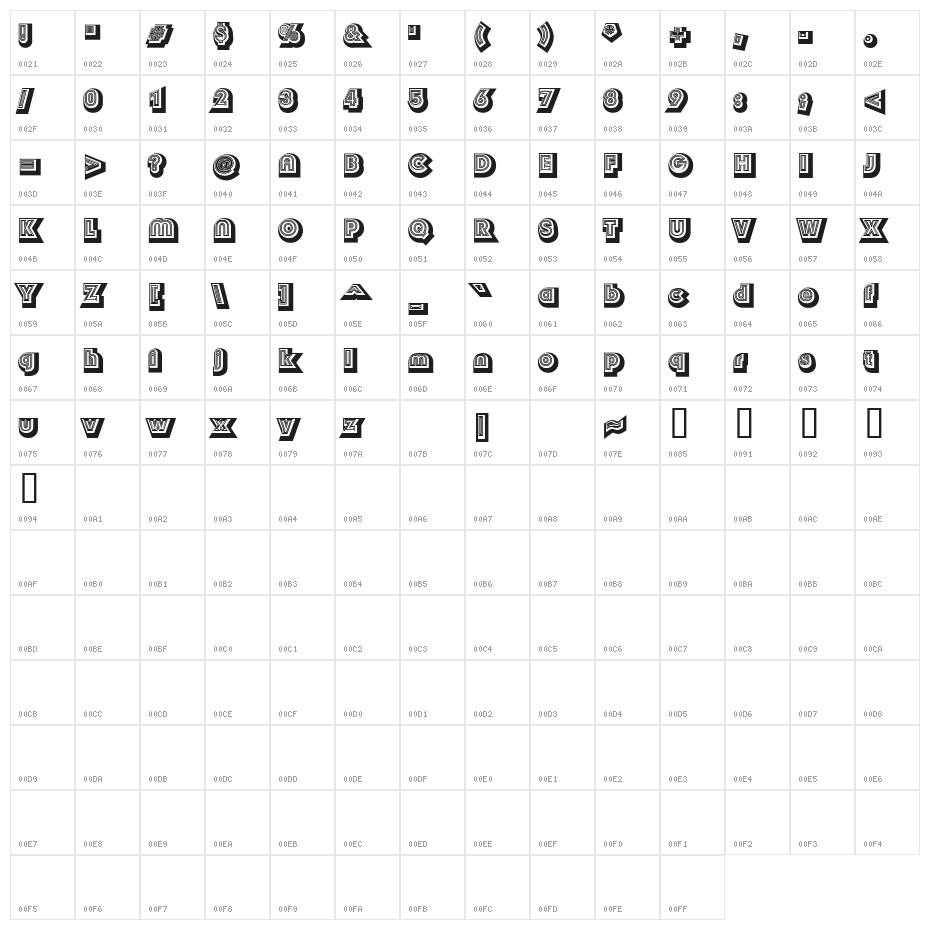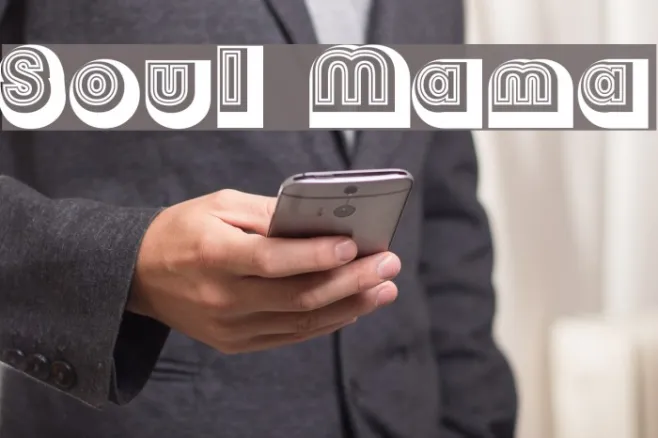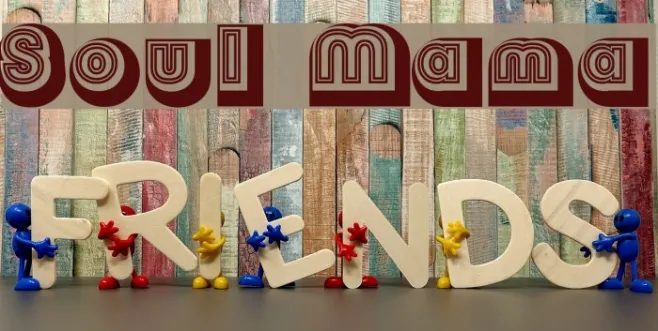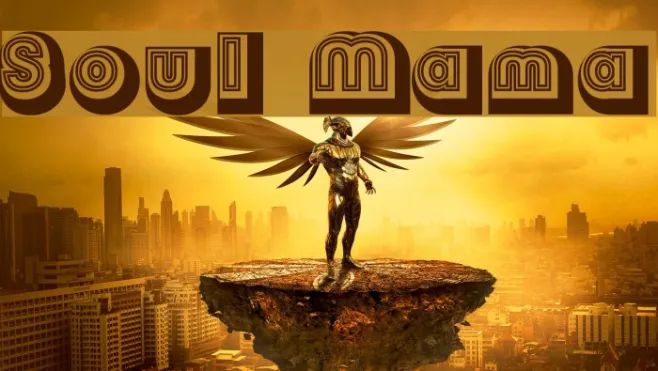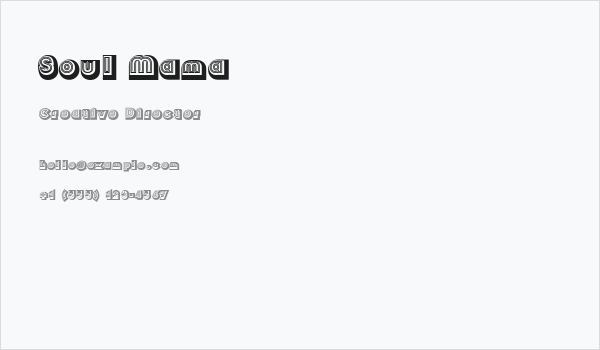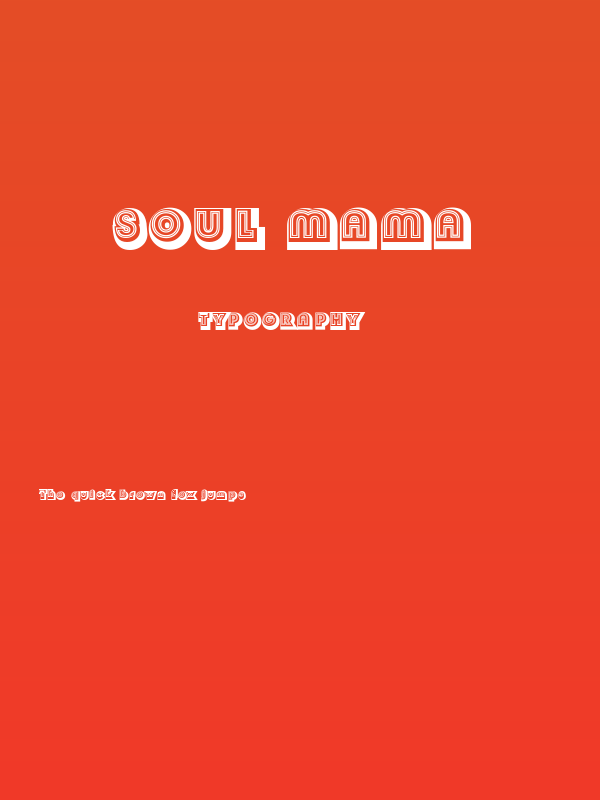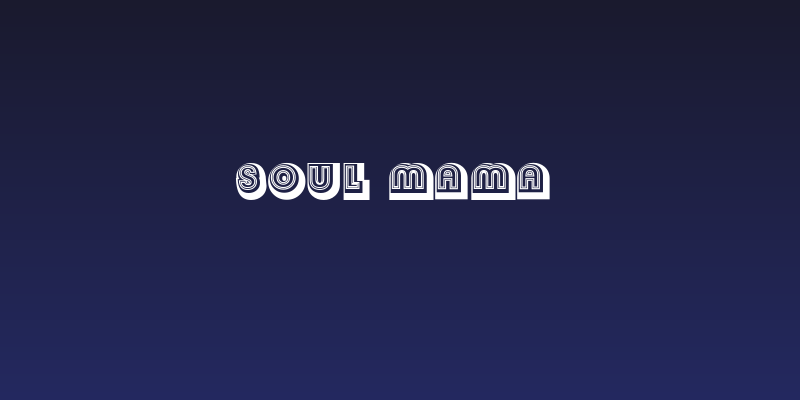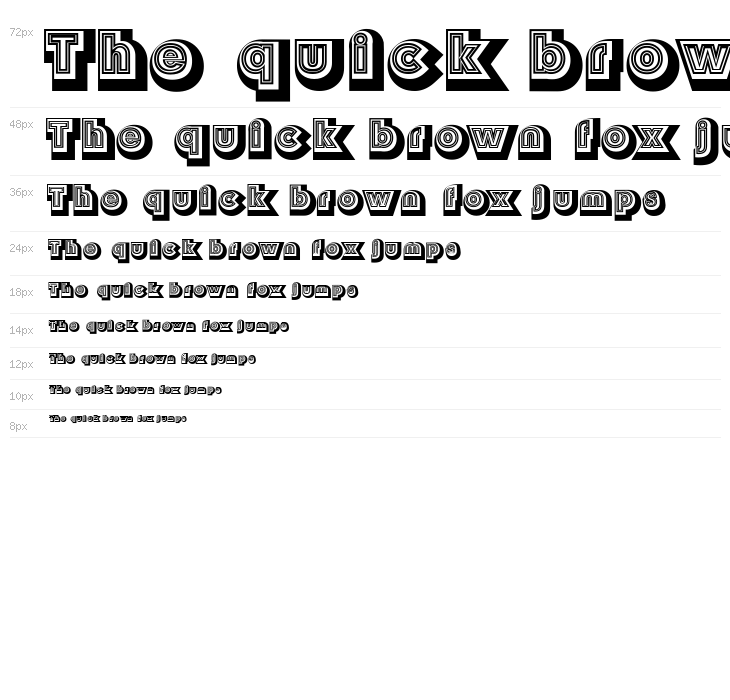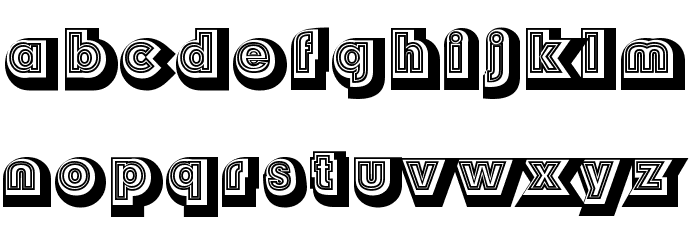
Soul Mama Font
Soul Mama Description
This font features a bold and dynamic 3D effect, with each character outlined and shadowed to create a striking visual impact. The letters are uppercase and lowercase, with numerals and special characters, all maintaining a consistent style. The design is playful and eye-catching, making it ideal for projects that require a strong visual presence. The characters are well-spaced, ensuring readability while maintaining a decorative flair. The font's unique style is perfect for creative and artistic projects, offering a modern twist on classic typography.
| Proposed Projects | Ideal for posters, logos, headlines, and any design needing a bold, artistic touch. |